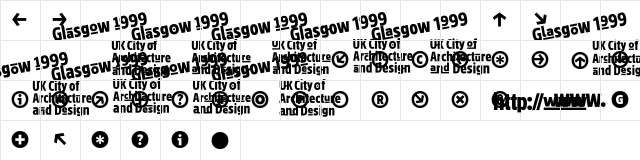
Glasgow1999 Logo
Design Context for Glasgow1999 Typeface
Glasgow1999 takes a measured approach to typography — its balanced proportions and neutral character make it a reliable workhorse for both digital and print work.